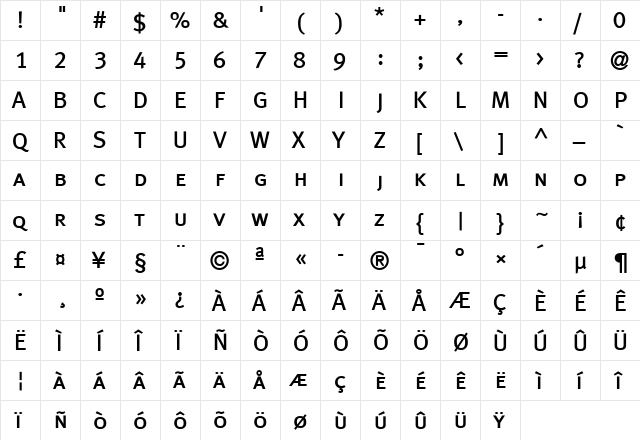
Meta-CapsMedium Medium Font Preview
Meta-CapsMedium Medium
Meta-CapsMedium Medium Font Details
Design Context for Meta-CapsMedium Typeface
Meta-CapsMedium takes a measured approach to typography — its balanced proportions and neutral character make it a reliable workhorse for both digital and print work.
Pro Tip: Use Meta-CapsMedium in both headline and body roles to test its range before committing to a single application.